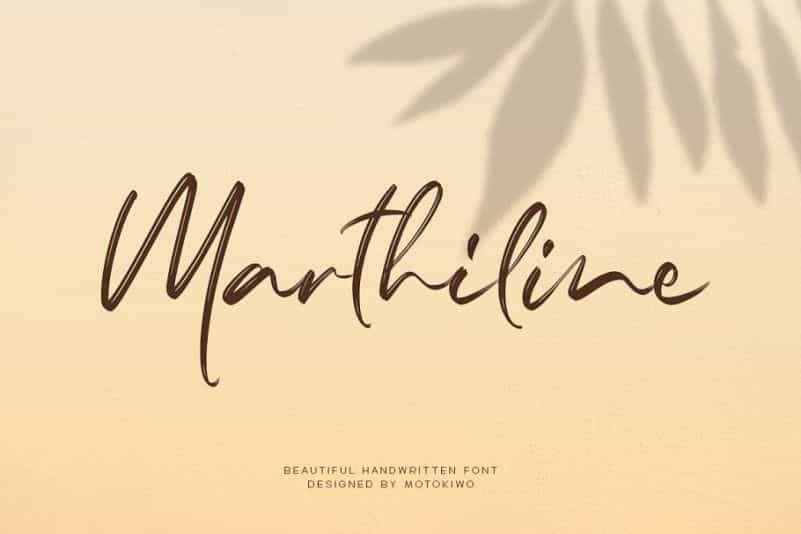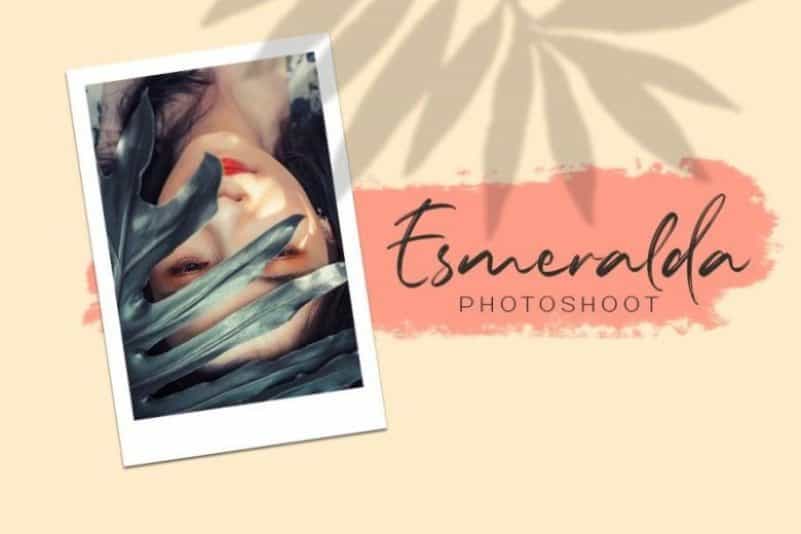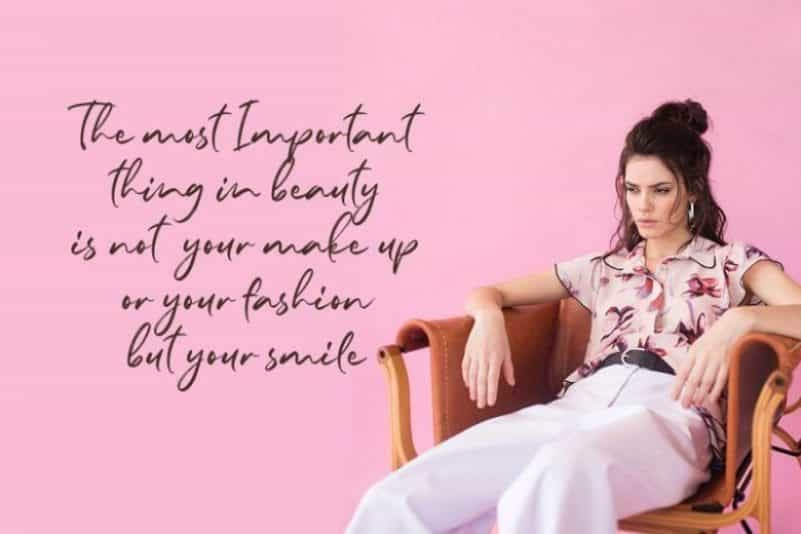
Introducing Marthiline Font. This one is called the sweet beauty handwritten font which would be ideal for beauty branding, book cover, poster, magazine, or quotes. Marthiline HandBrush is the font that supports the uppercase, lowercase, numeral, and punctuation, multilingual, and ligature that comes with the PUA encoded.